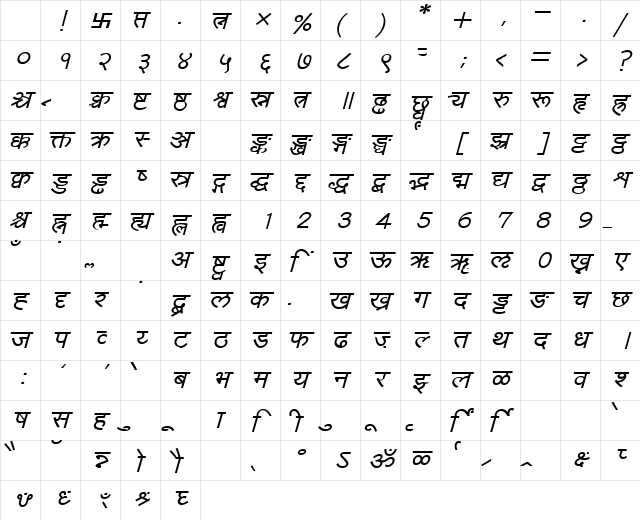
Complete Yogeshweb Italic glyph index. Displaying only characters natively supported by Yogeshweb Italic font.
Yogeshweb is a composed and adaptable typeface that performs quietly and consistently across a wide range of design contexts. The slanted form adds forward momentum and visual energy.